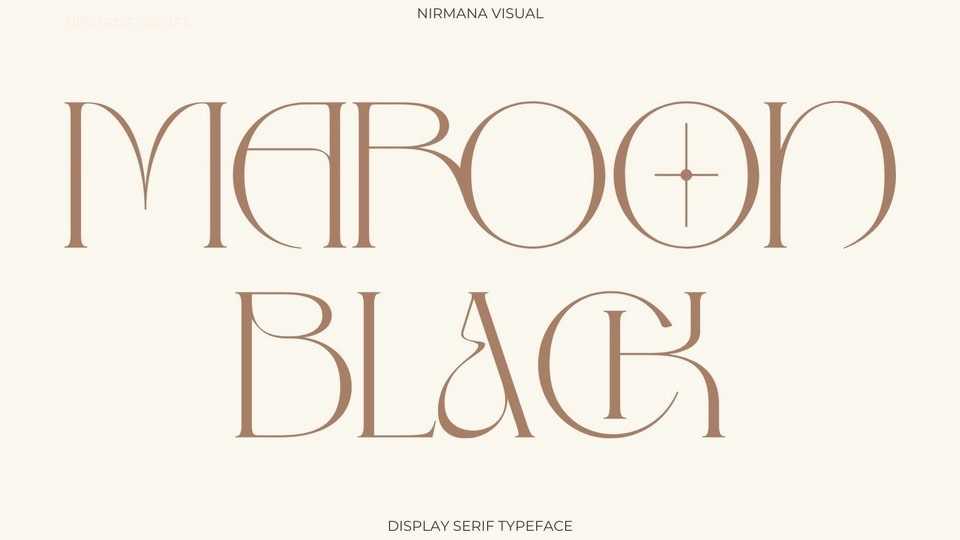
Download Maroon Black font, a sophisticated display typeface inspired by Renaissance Era. Maroon Black offers beautiful typographic harmony for a diversity of design projects, including logos and branding, social media posts, advertisements and product designs.